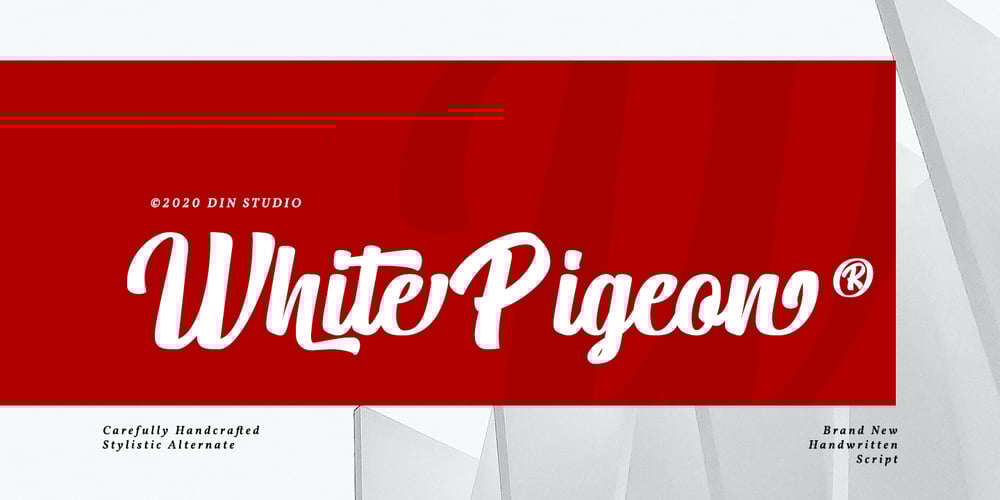
White Pigeon
White Pigeon font
White Pigeon Font Family was designed by Donis Miftahudin and published by Din Studio. White Pigeon contains 1 styles and family package options. White Pigeon is a modern handwritten font. It brings a beautiful and attractive typeface. Made for any professional project branding. It is the best for logos, branding, wedding and quotes.Features: Stylistic Set Standard Ligatures Multilingual Support PUA Encoded Numerals and Punctuation Thank you for downloading premium fonts from Din Studio